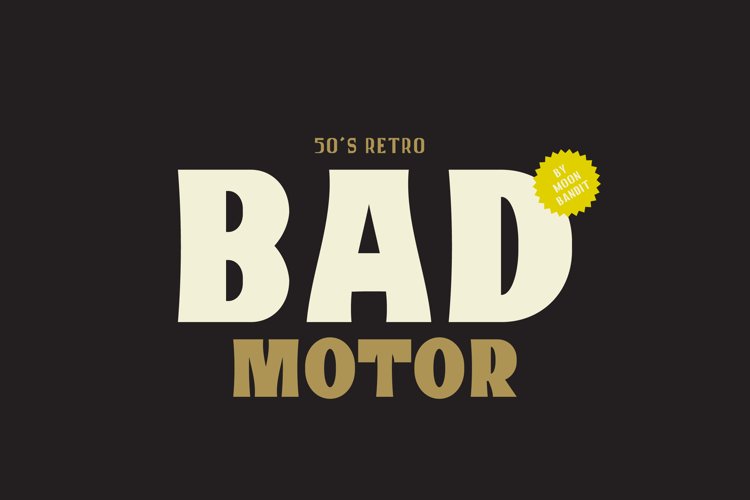
Bad Motor - Timeless typeface
MBF Bad Motor
Moonbandit proudly presents Bad Motor typeface, a powerful bold vintage font. Inspired by the glorious old world of route 66, Bad Motor is perfect for that retro look and feel for your projects. This typeface is maxed with anarchy, attitude and attention.